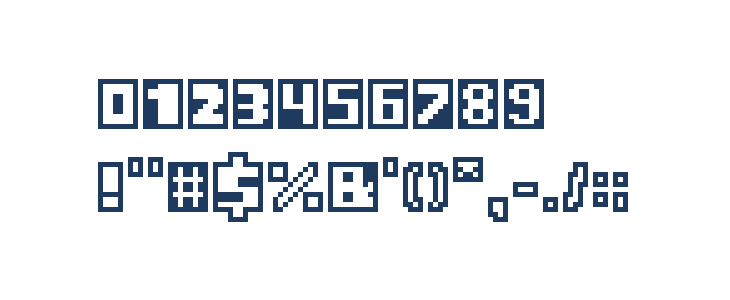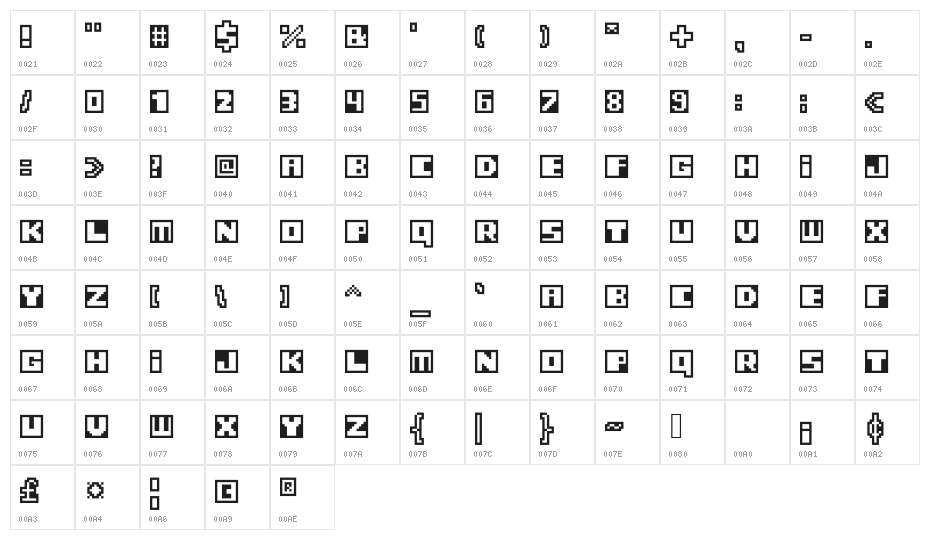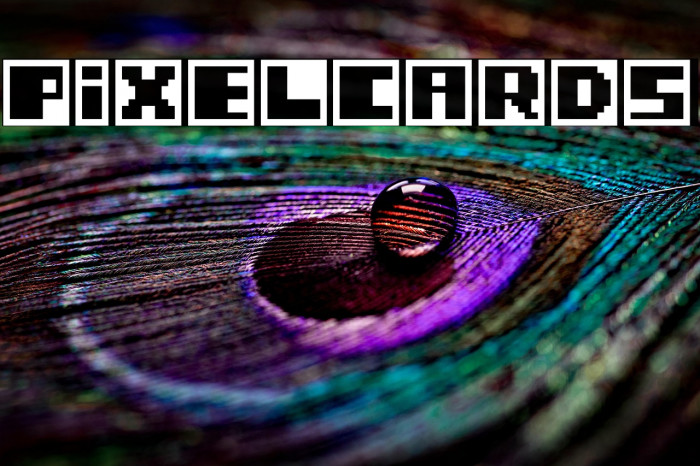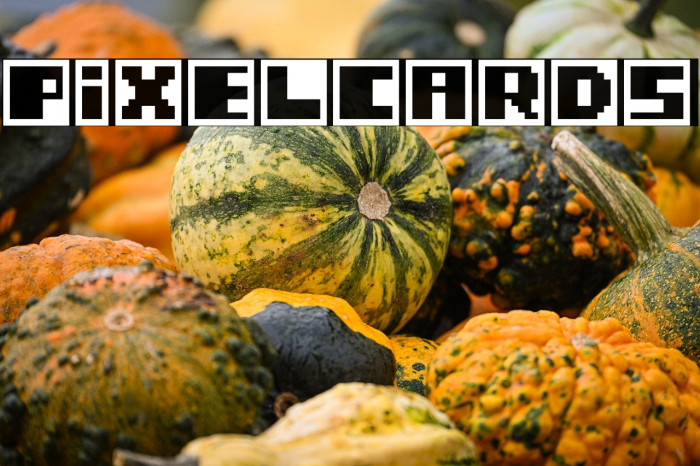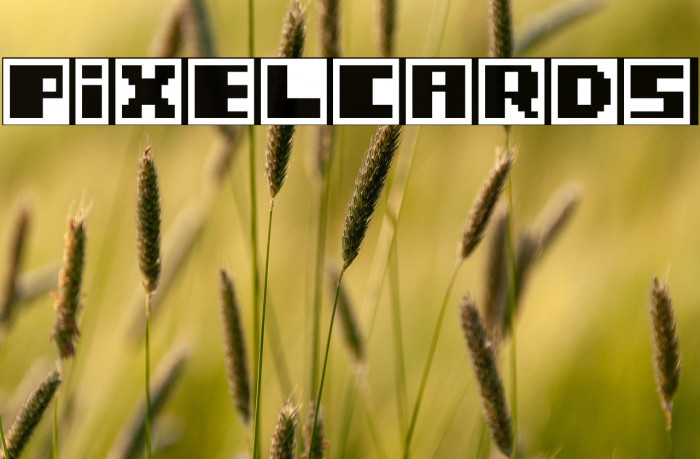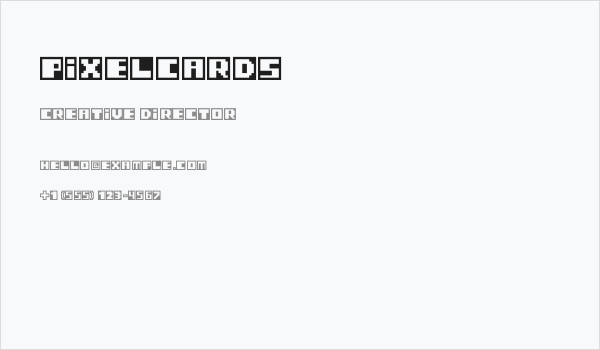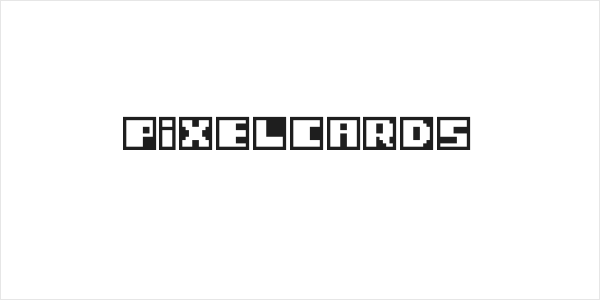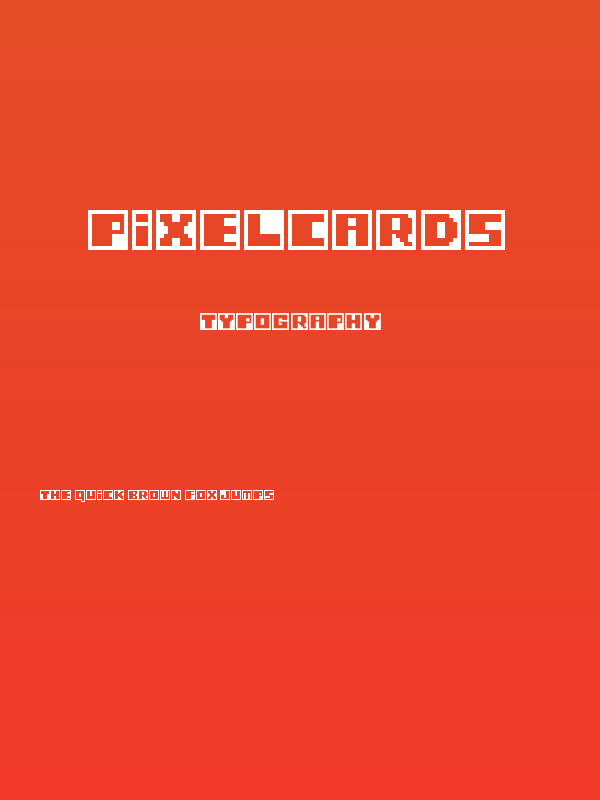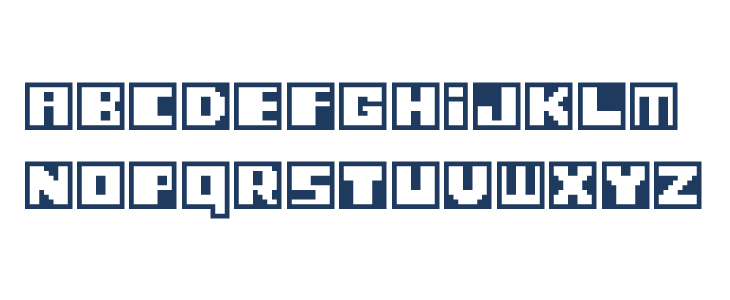
PixelCards Font
PixelCards Description
This font features a bold, pixelated design reminiscent of classic 8-bit video games. Each character is constructed with a blocky, grid-like structure, giving it a retro, digital aesthetic. The uppercase and lowercase letters maintain a consistent height, while the numbers and special characters follow the same pixelated style. The font's uniformity and geometric precision make it ideal for projects that aim to evoke nostalgia or a vintage gaming feel. Its distinct appearance ensures high readability in both small and large sizes.
| Overall Style | Vintage |
| Proposed Projects | Ideal for retro video game designs, digital art projects, and nostalgic branding. |